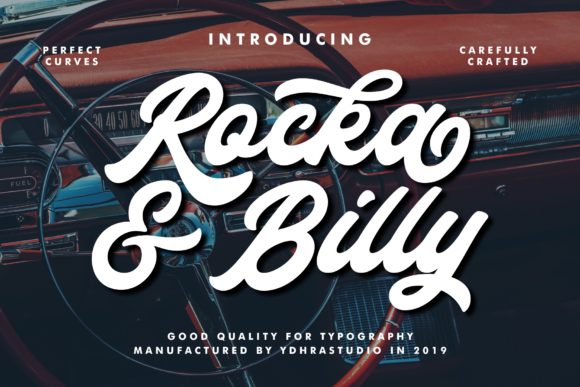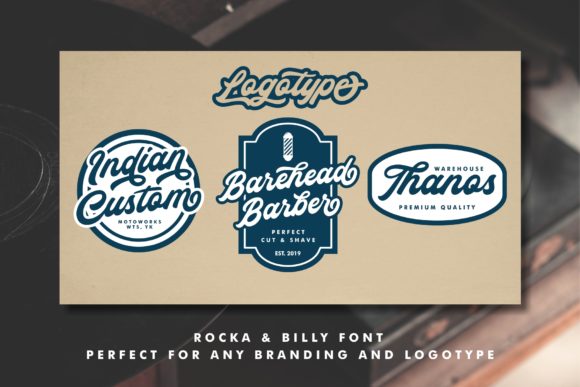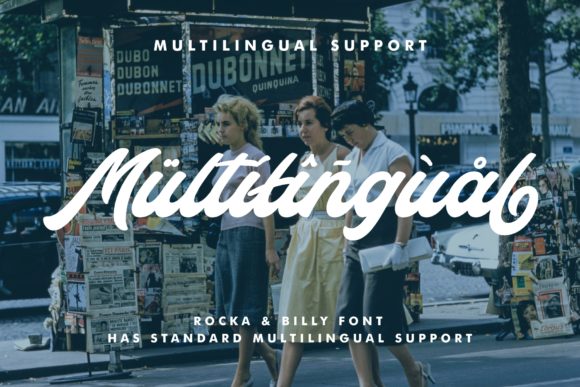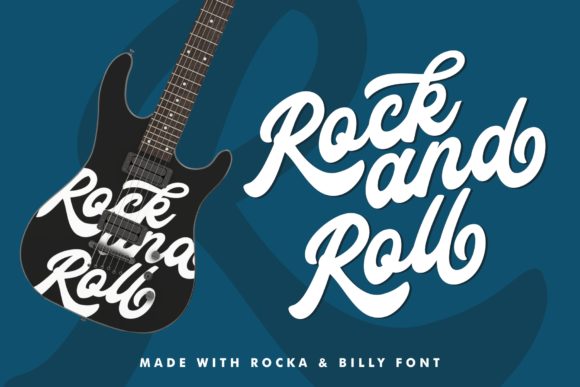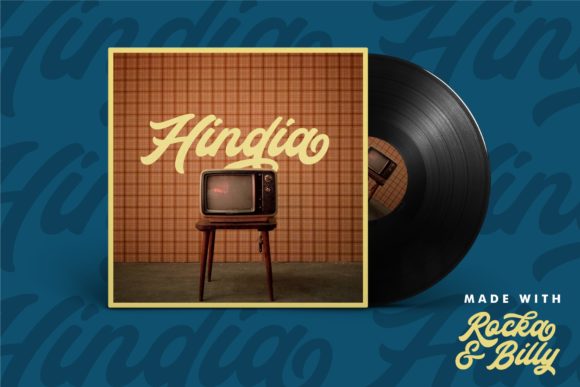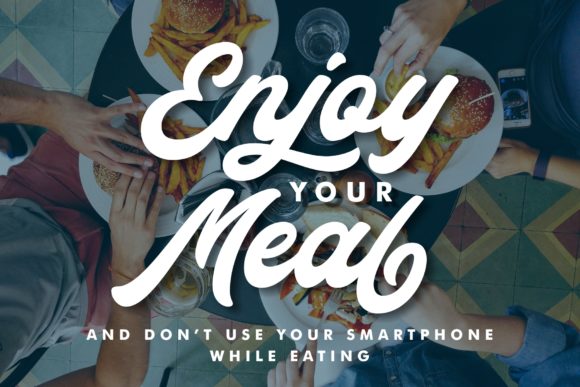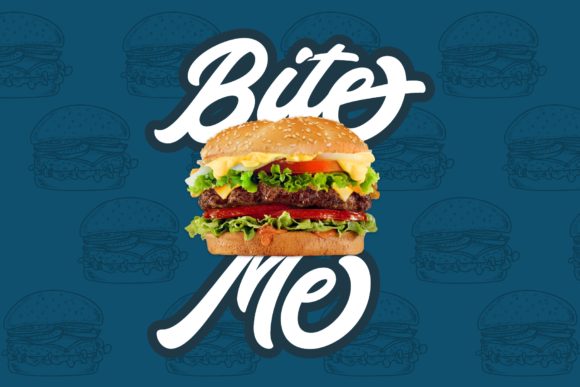
Rocka & Billy is a rock’n’roll-themed handwritten font with a powerful feel. Fall in love with its unique charm, and turn any design project into a stand out!